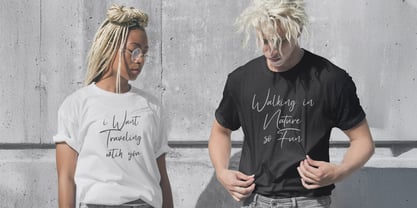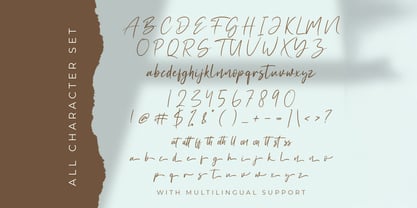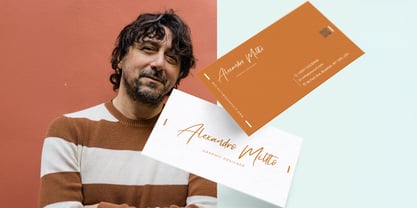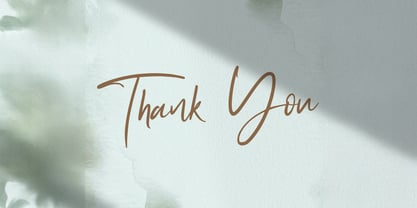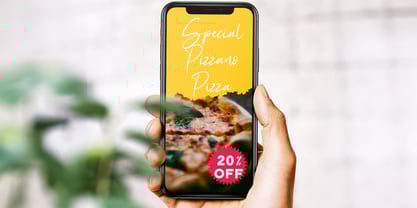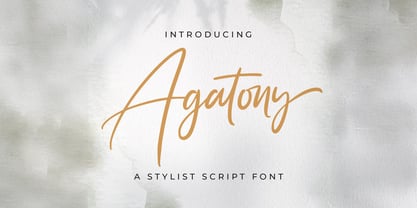
The Agatony Font Family was designed by Virgiawan Listanto and published by Stringlabs Creative Studio. Agatony contains 1 styles. More about this family
Agatony is a charming handwritten font that captures the flow of natural handwriting with a touch of elegance and personality. Its smooth strokes and casual rhythm make it perfect for adding a personal, heartfelt feel to any project.
Designers: Virgiawan Listanto
Foundry: Stringlabs Creative Studio
Agatony